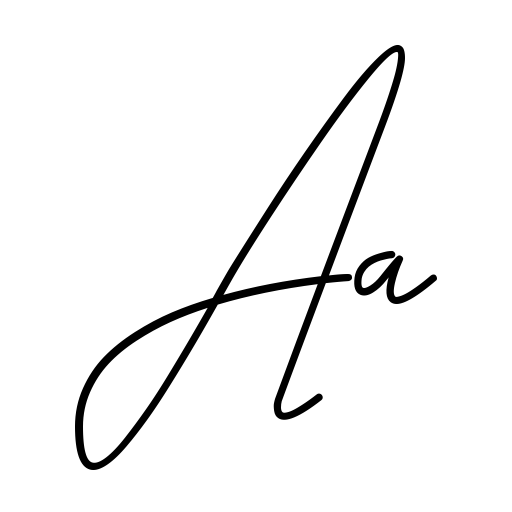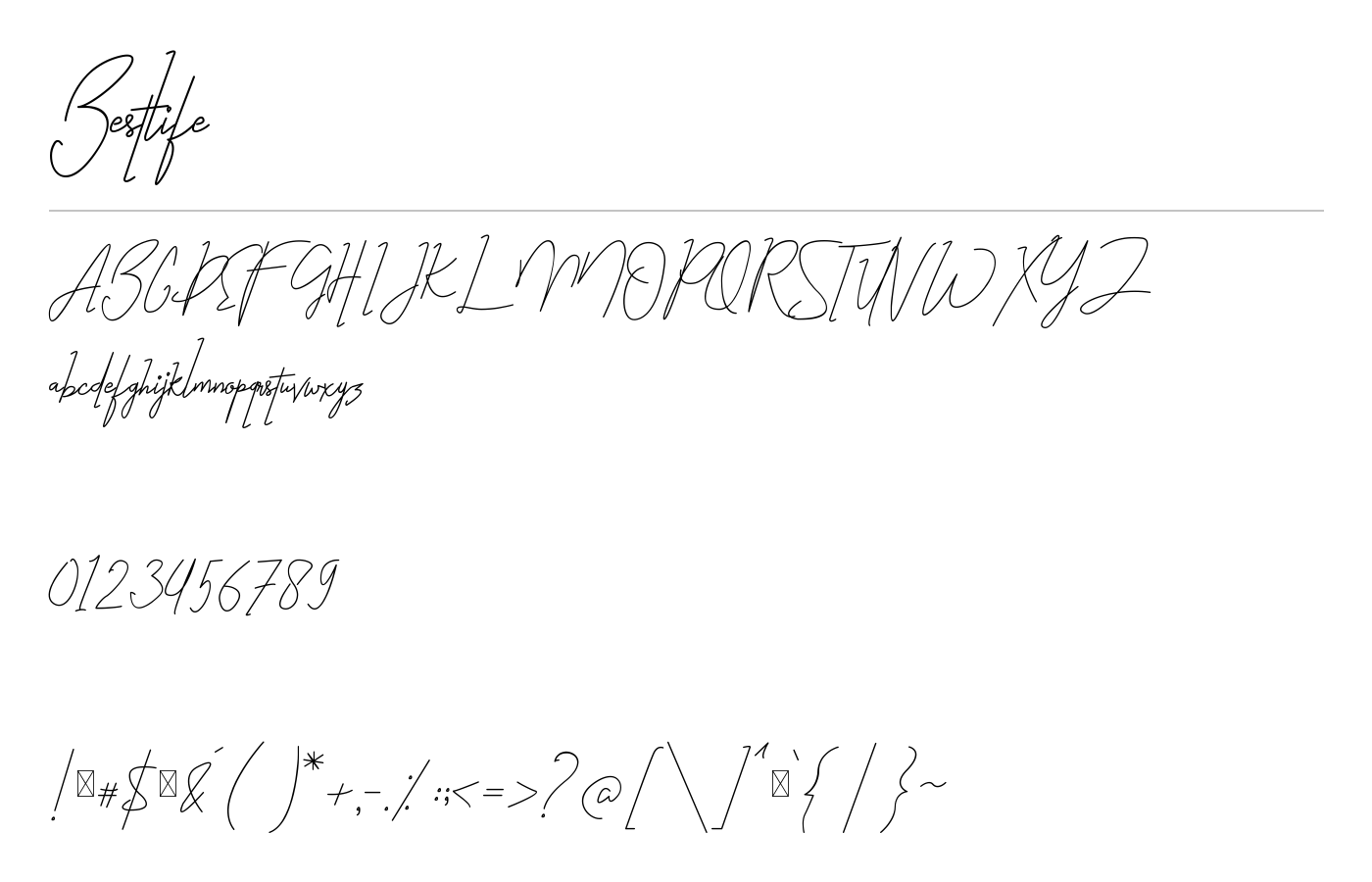
Bestlife is an elegant, slender script font characterized by its tall, flowing letterforms and delicate, handwritten style. Its light weight and narrow proportions give it a graceful and sophisticated feel, making it perfect for branding, invitations, and designs that seek a personal, refined touch. This font works well in decorative uses where a stylish, contemporary script adds charm and character.
Bestlife Font
About Bestlife Font
| Font family | Bestlife Font |
| Designer | Ikrar Bey Khubaib |